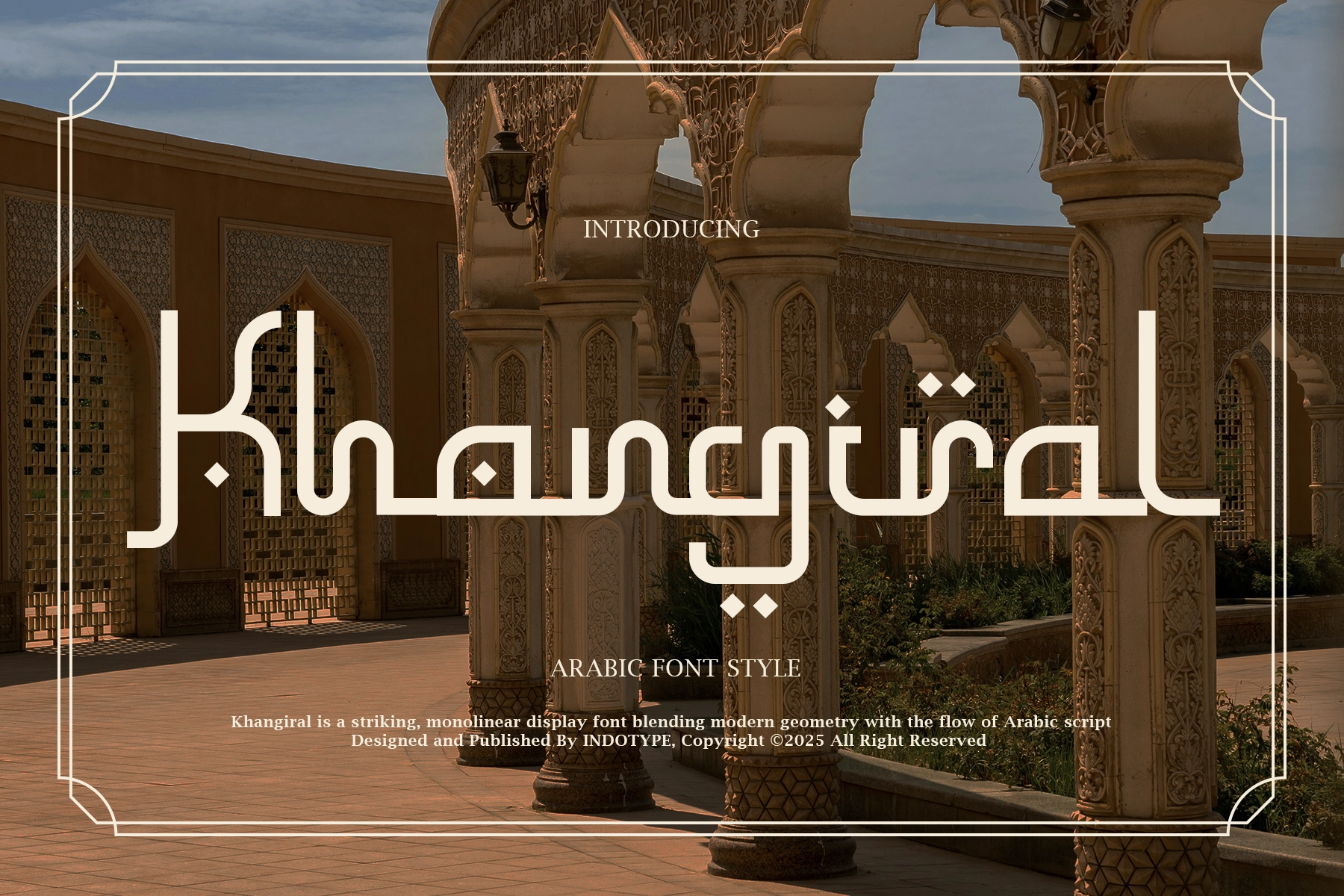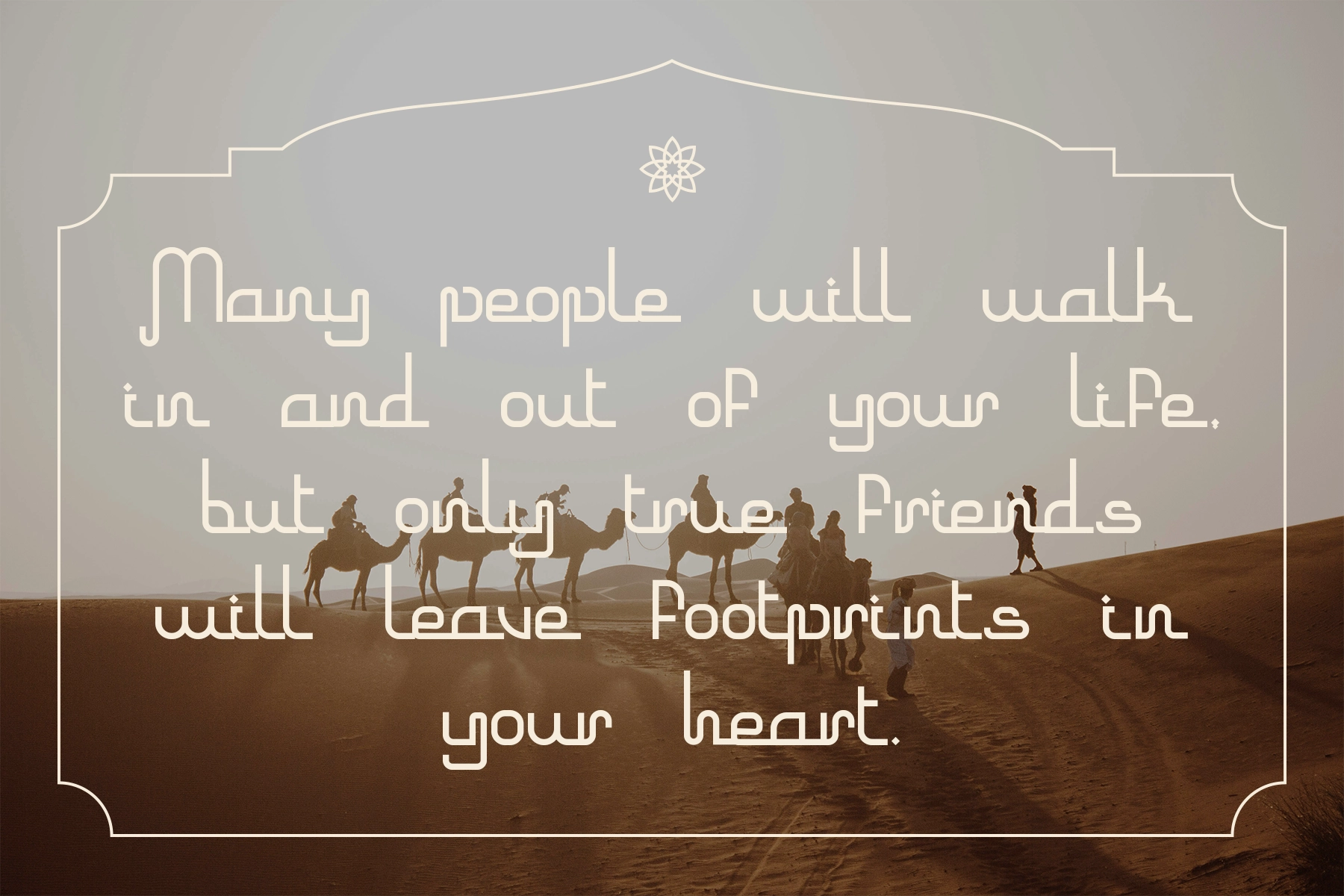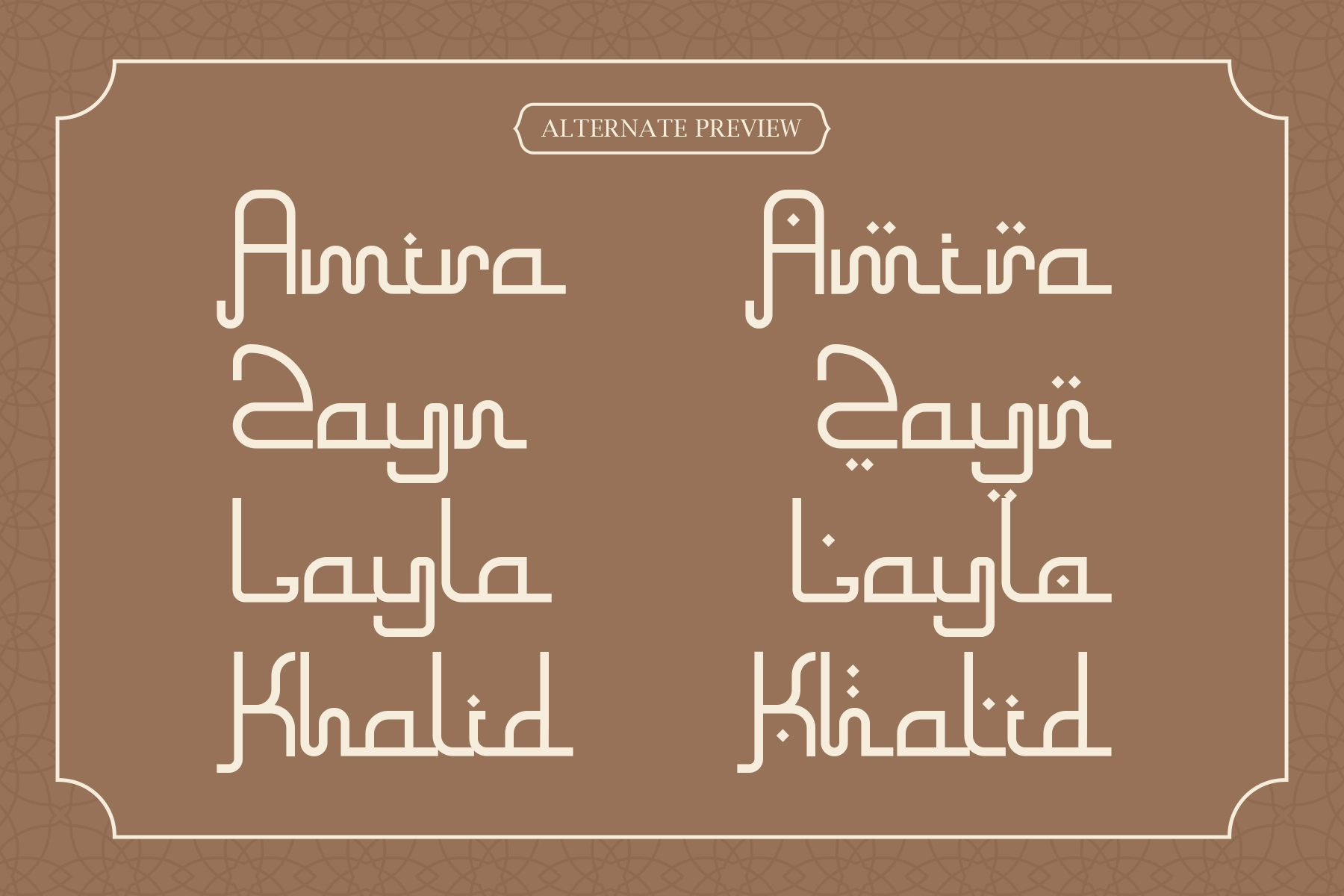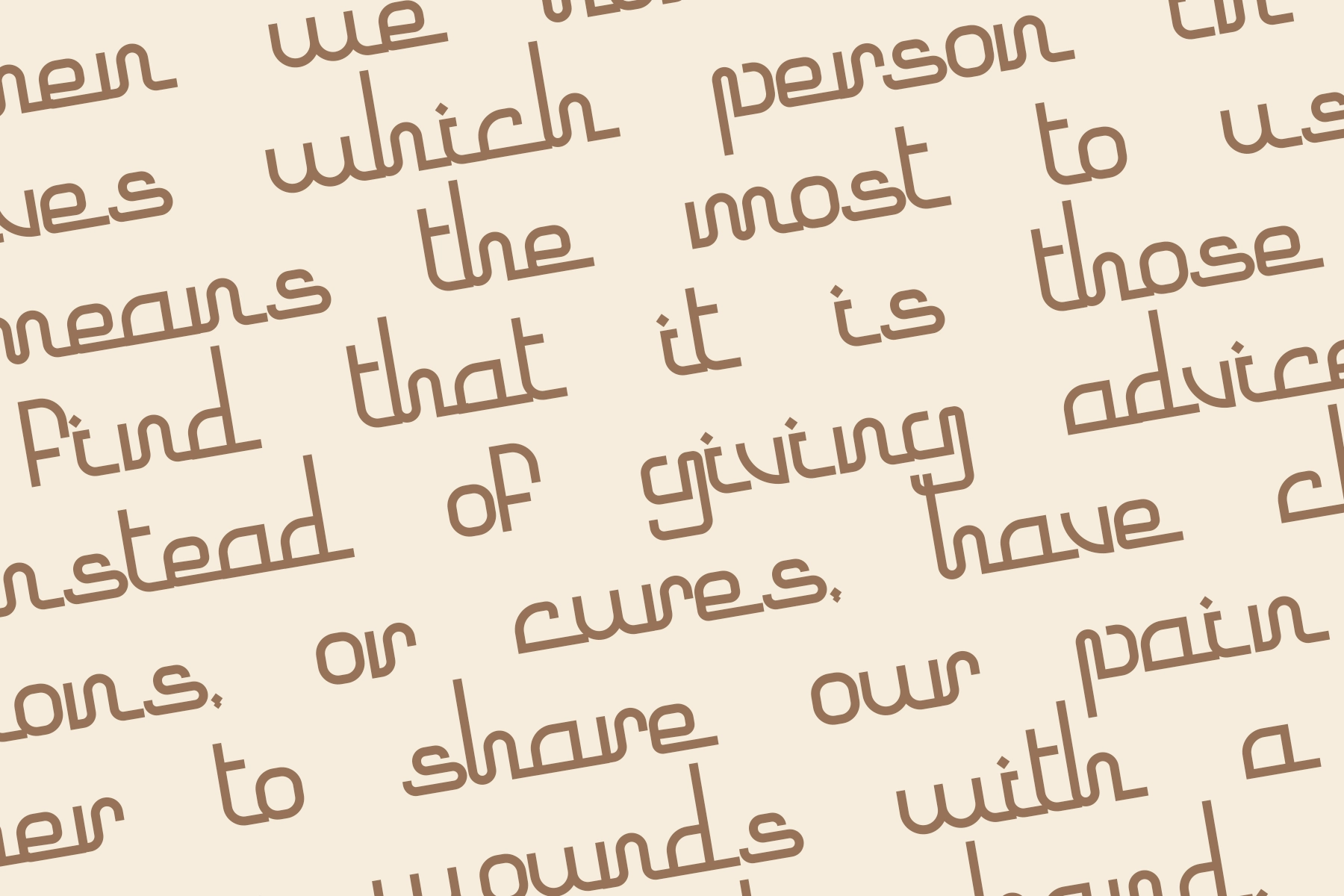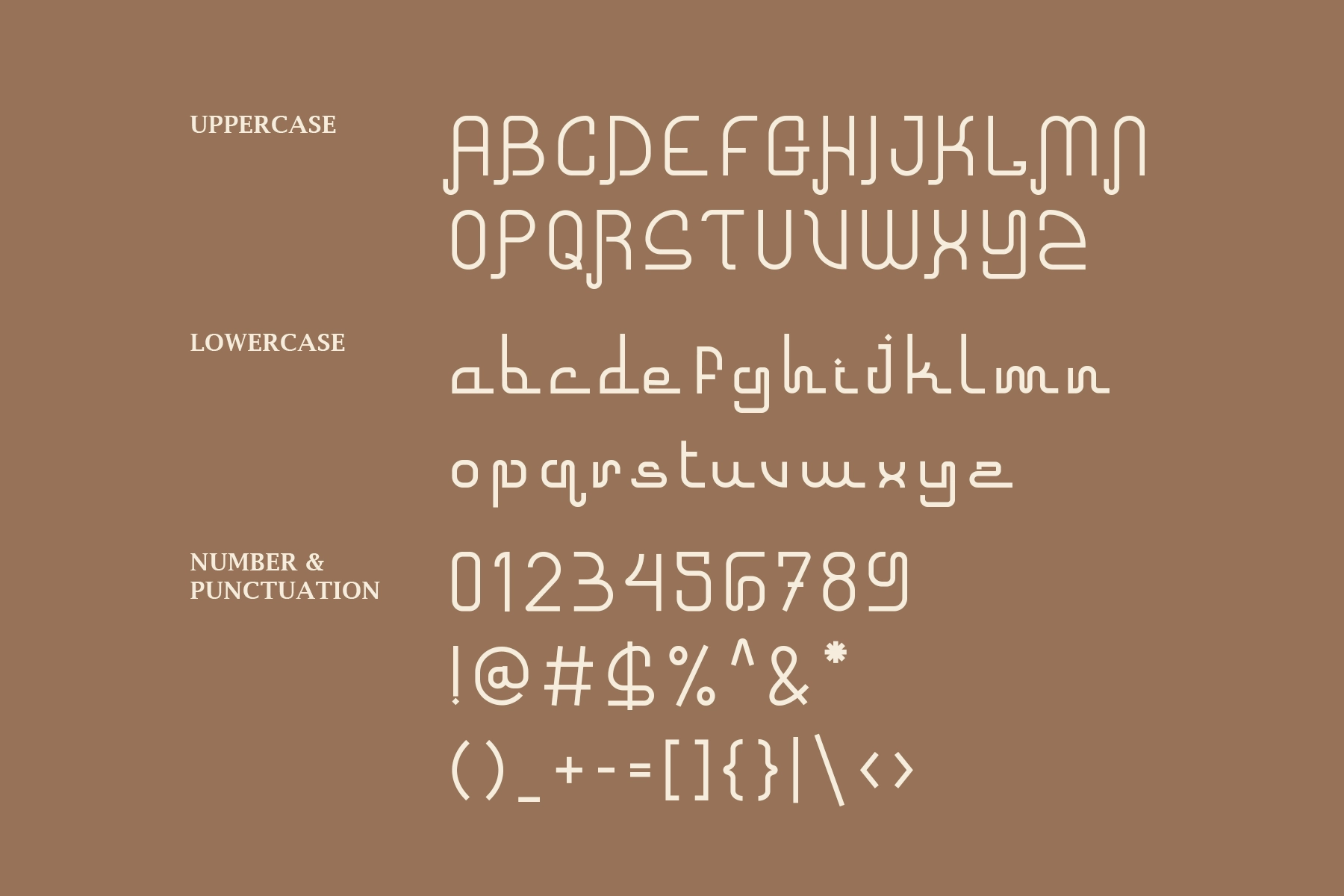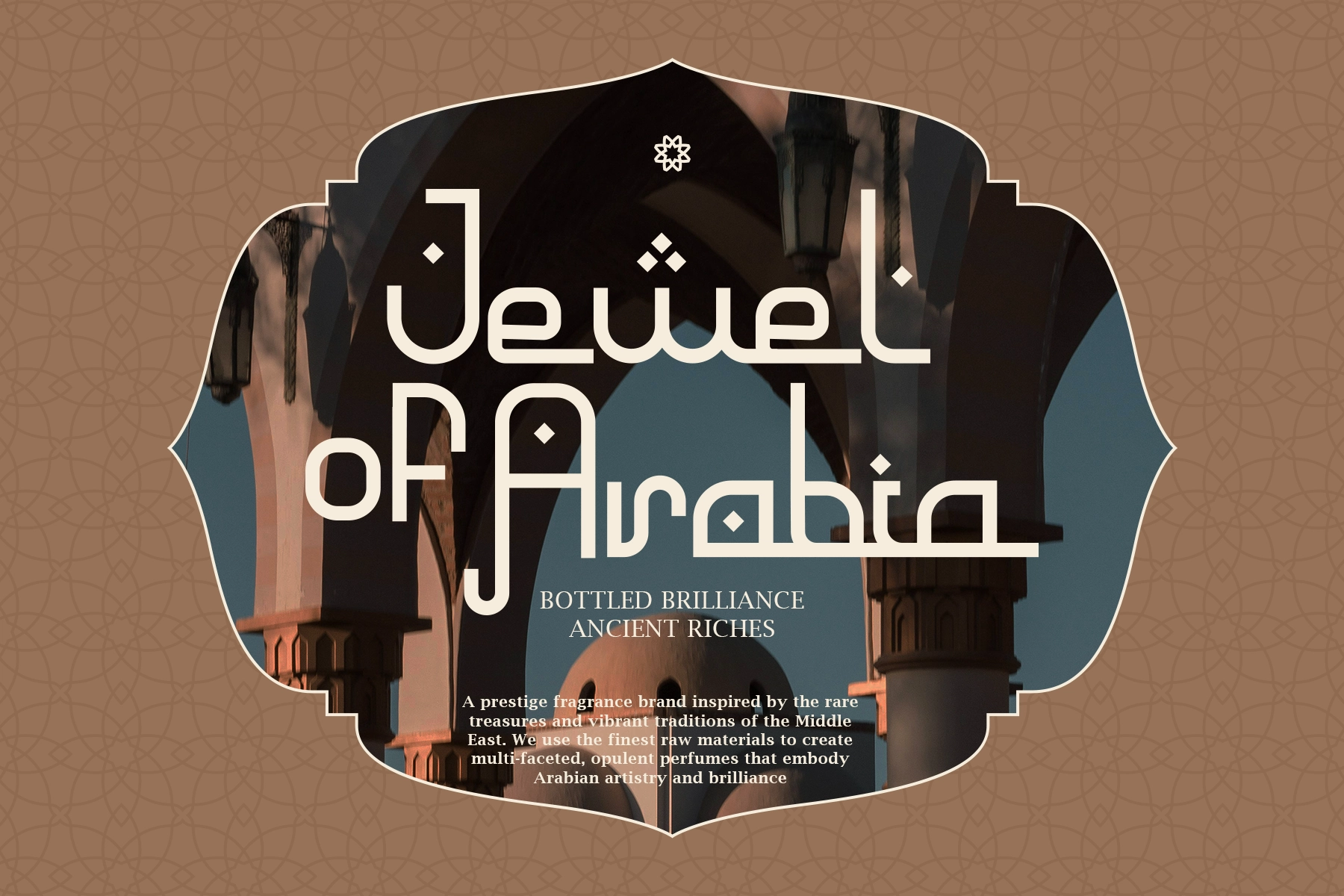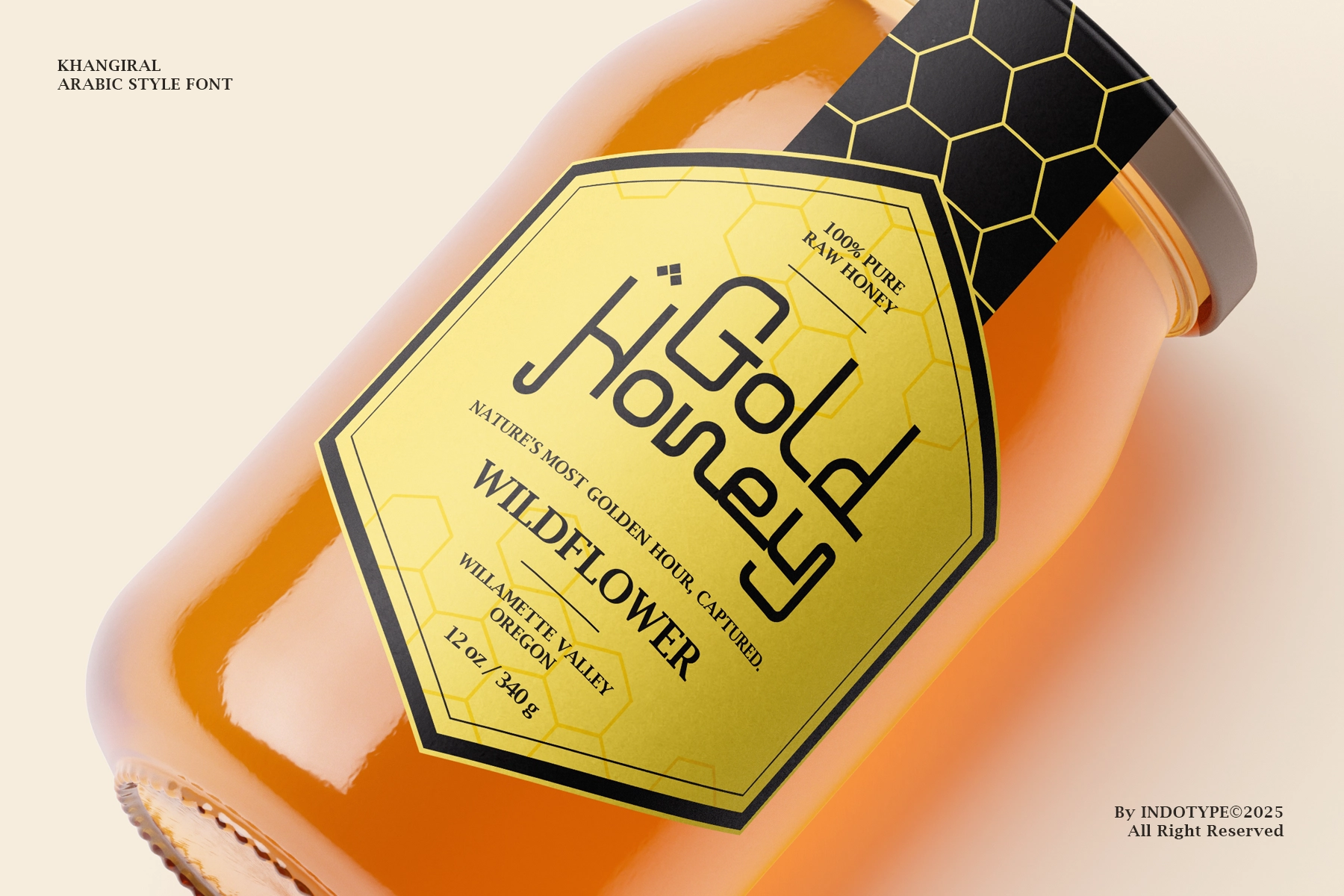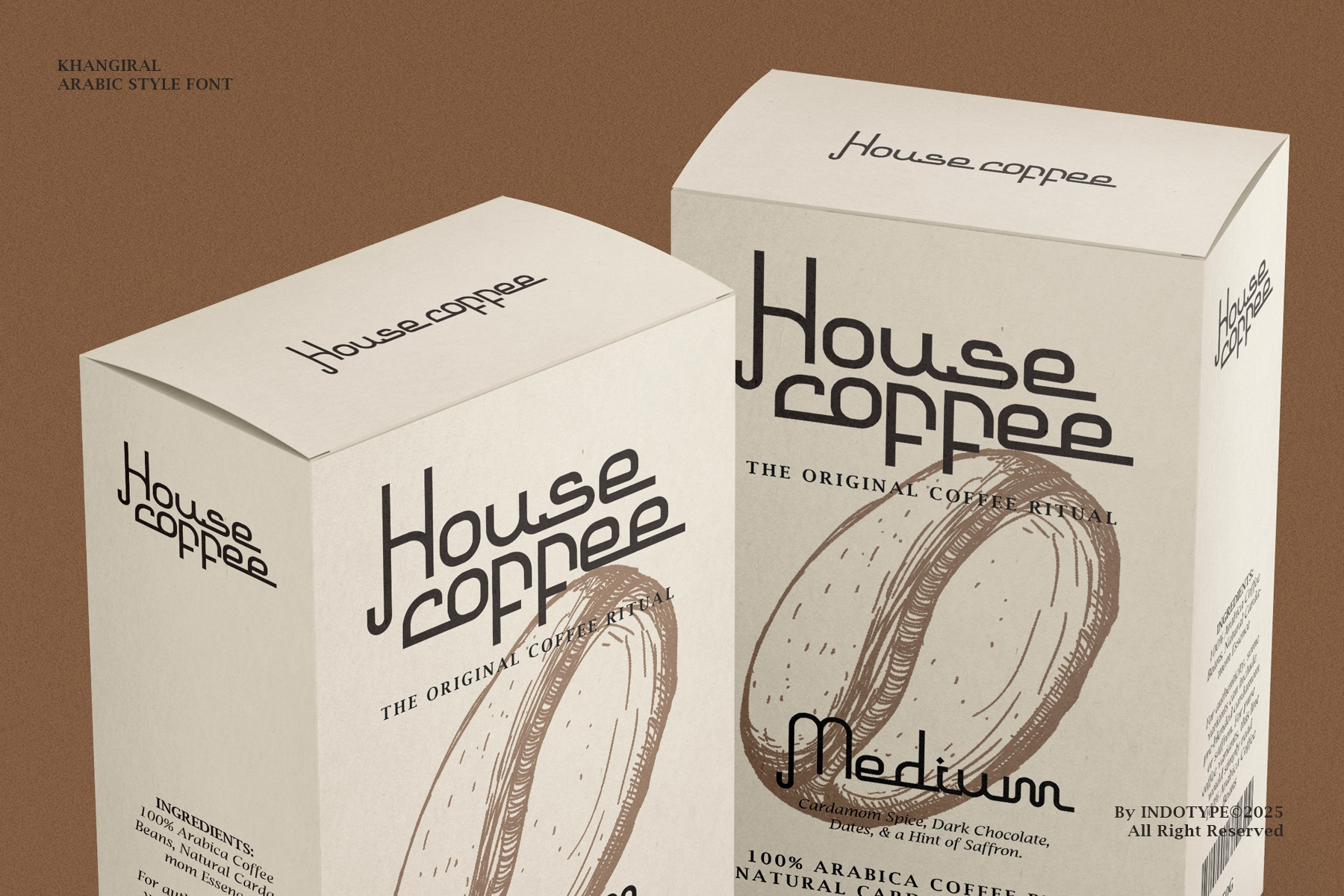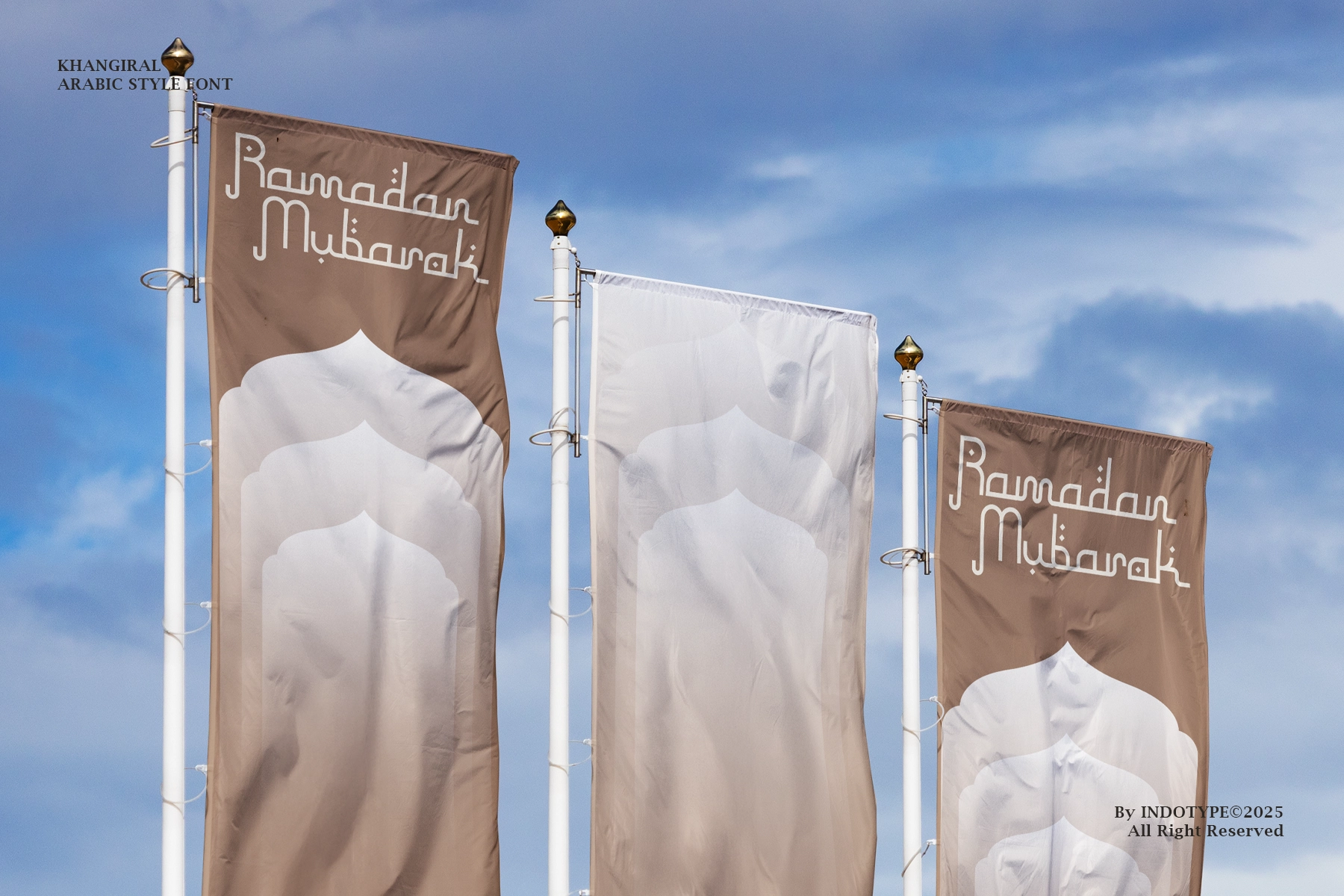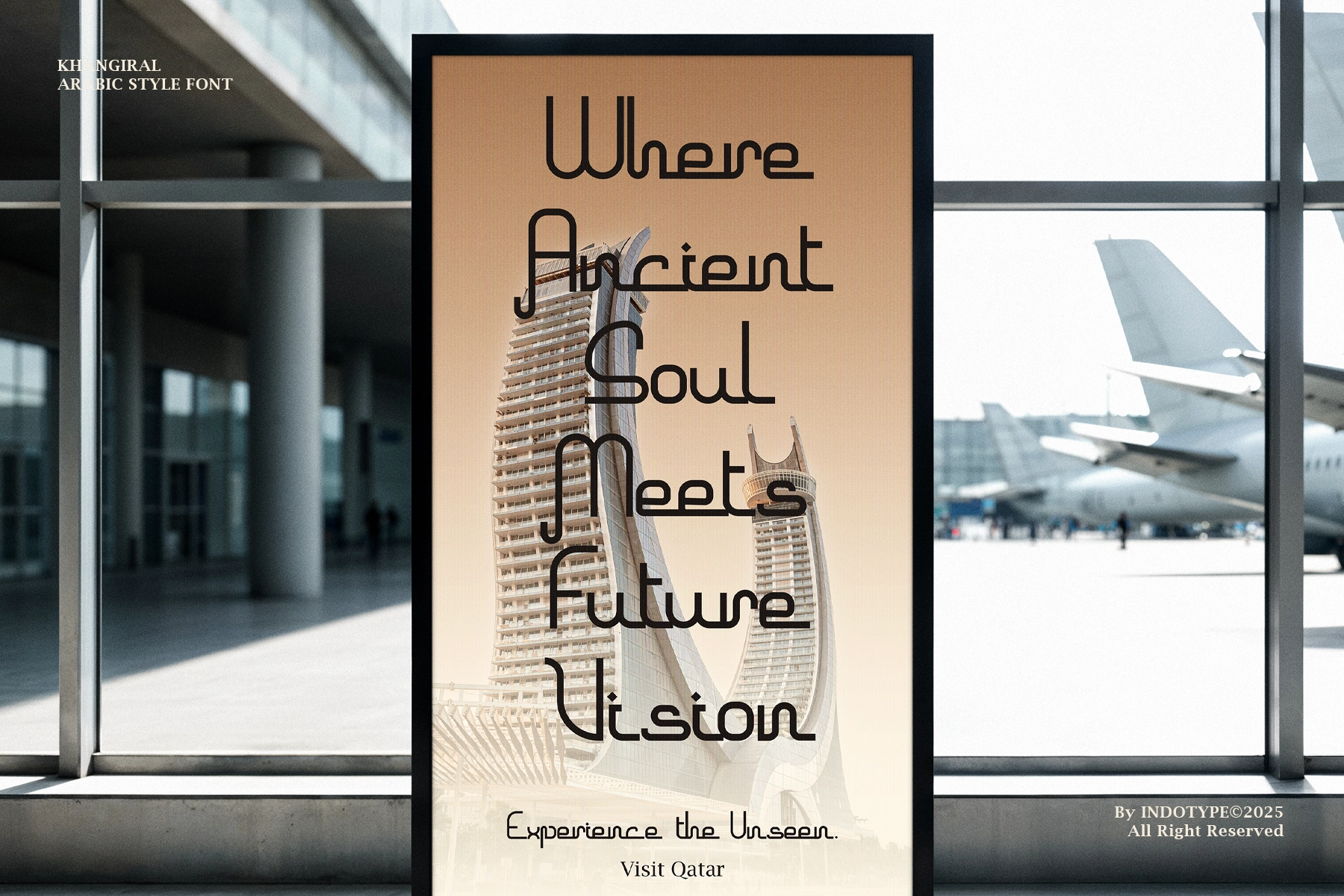
Khangiral - Monolinear Arabic Display Font
This arabic-inspired display font uses a steady monoline structure, rounded terminals, and squared curves to create a clean ornamental rhythm. Its letterforms carry the visual logic of Arabic script through Latin characters, giving headlines a global, architectural tone with plenty of graphic presence.
Khangiral is made for identity systems, fragrance packaging, cultural event posters, restaurant branding, boutique hotel signage, editorial headlines, travel campaigns, fashion labels, premium labels, album artwork, social media titles, website headers, and more. The alternate characters add extra decorative control, making the font especially useful for logos, monograms, short quotes, and display compositions with a Middle Eastern visual reference.
- Uppercase & lowercase
- Alternate characters
- Arabic-inspired style